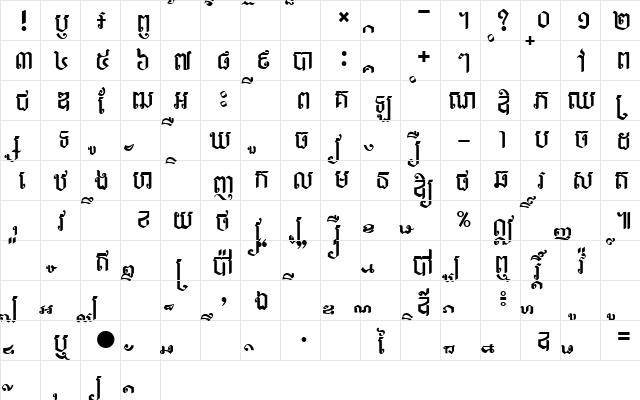
Chuoktip New Normal
Design Context for Chuoktip New Typeface
Chuoktip New takes a measured approach to typography — its balanced proportions and neutral character make it a reliable workhorse for both digital and print work.